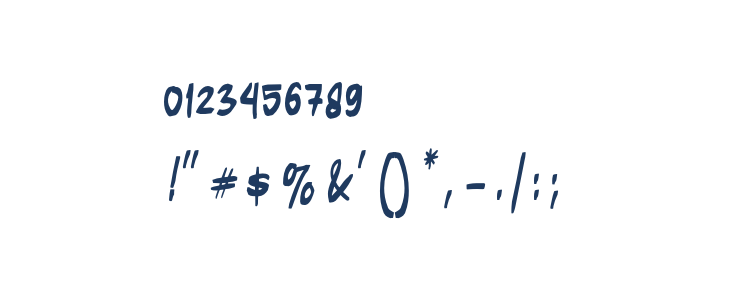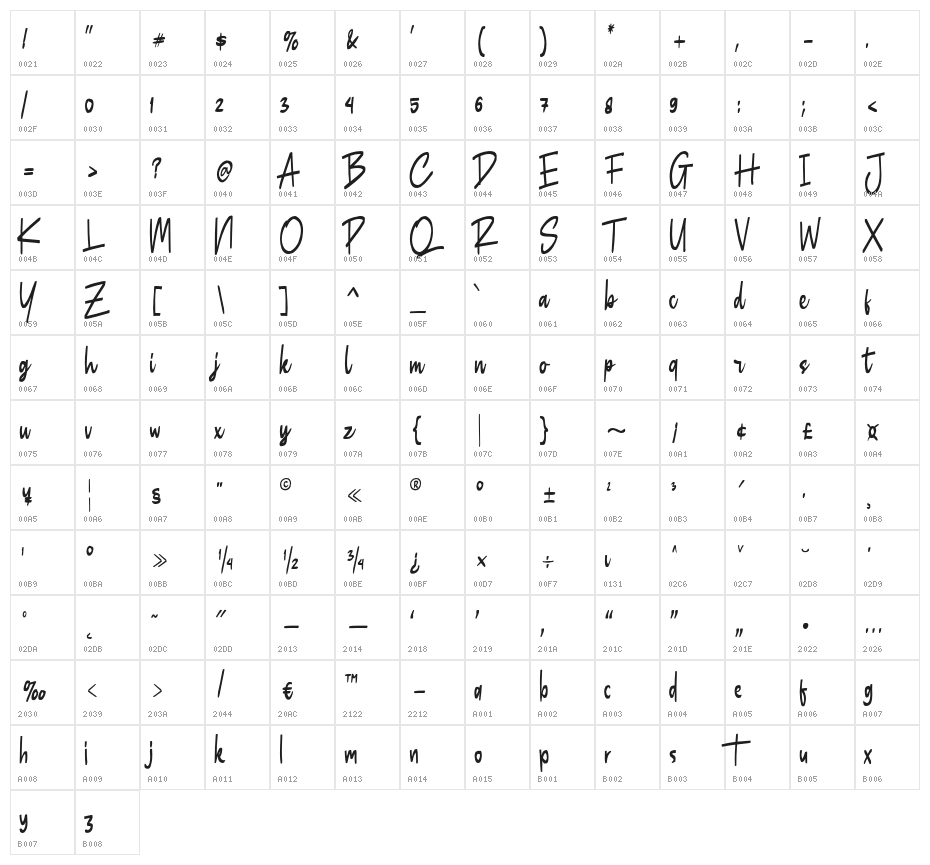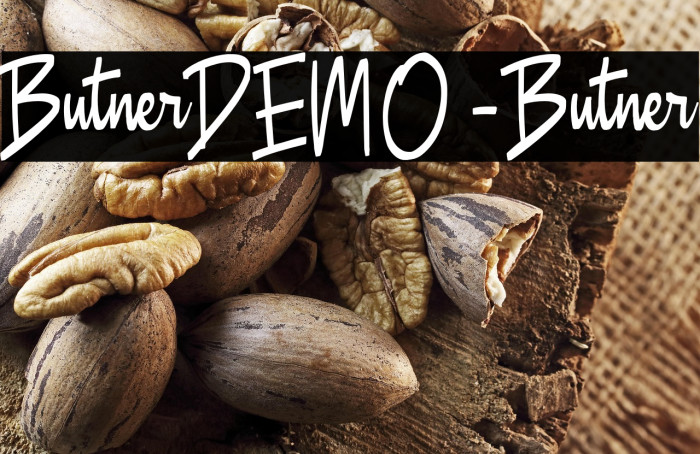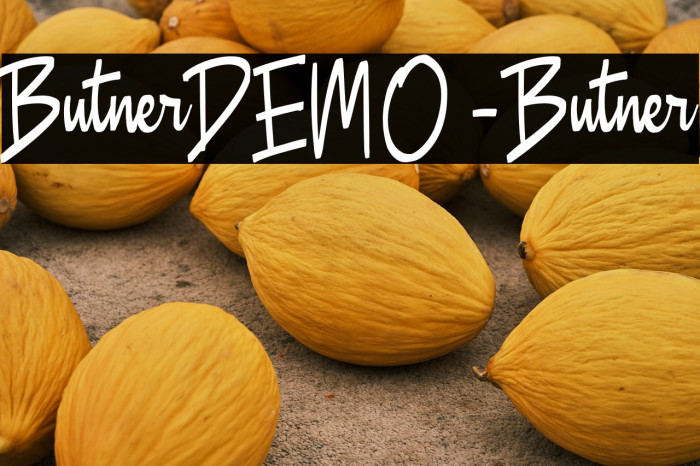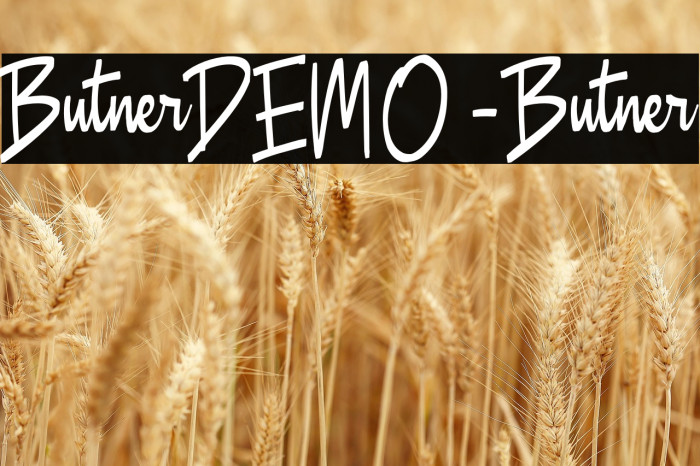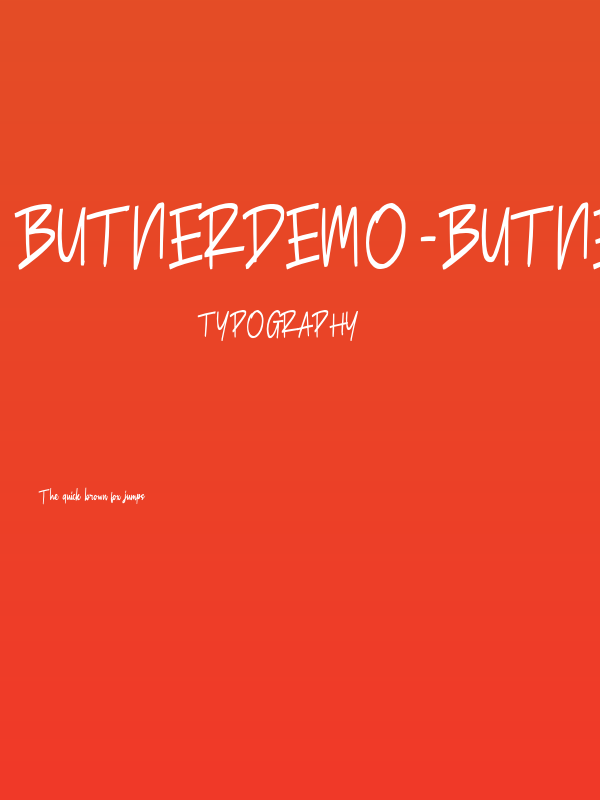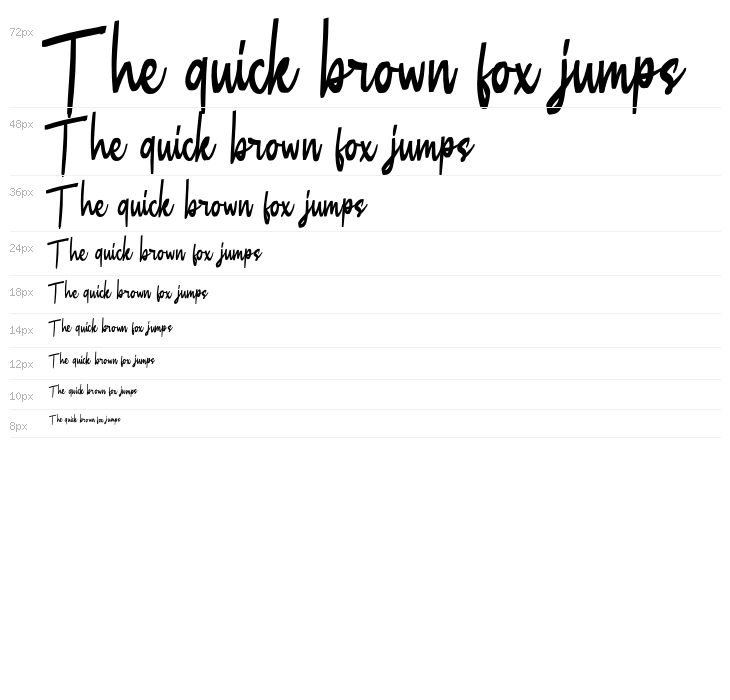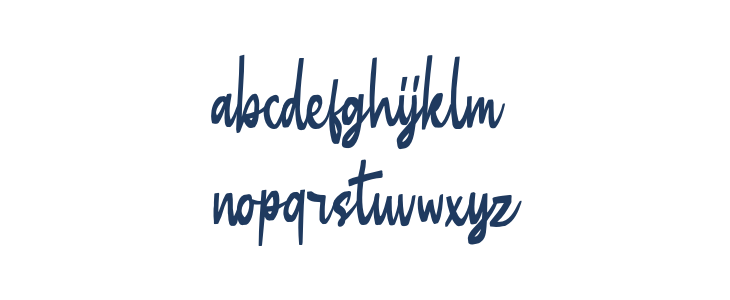
This font exhibits a dynamic and playful handwritten style, characterized by its irregular and slightly slanted letterforms. The uppercase letters are bold and expressive, with a casual flair that suggests movement and energy. The lowercase letters maintain a consistent flow, enhancing the handwritten feel. The numerals are clear and legible, matching the overall style of the alphabet. Special characters are creatively integrated, maintaining the font's lively aesthetic. This font is ideal for projects that require a personal touch, such as invitations, greeting cards, or creative branding.